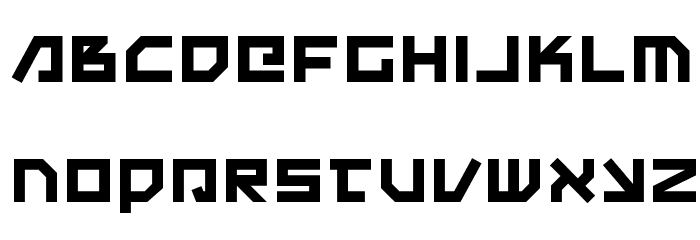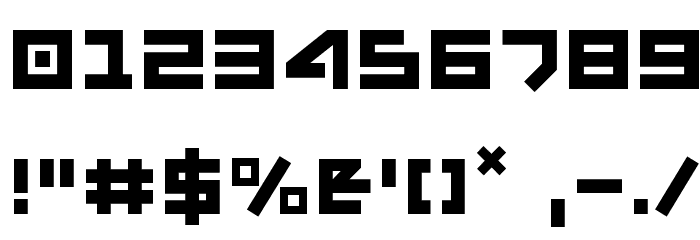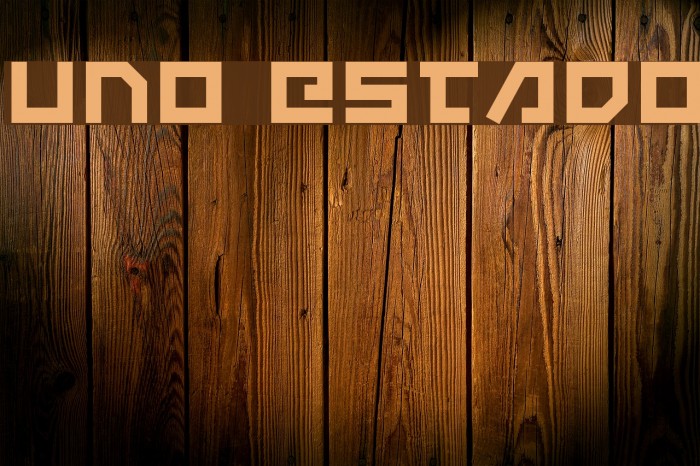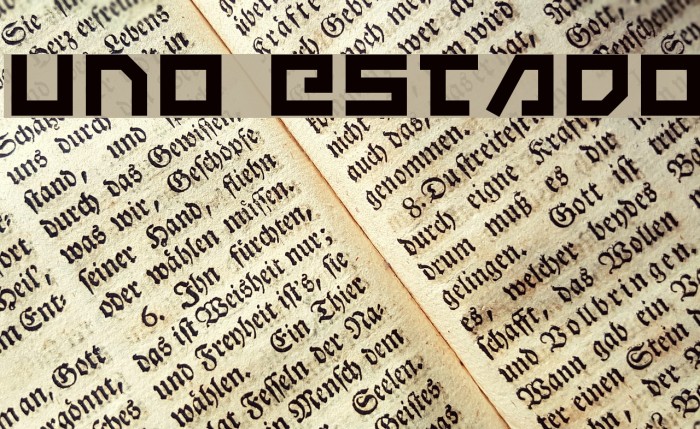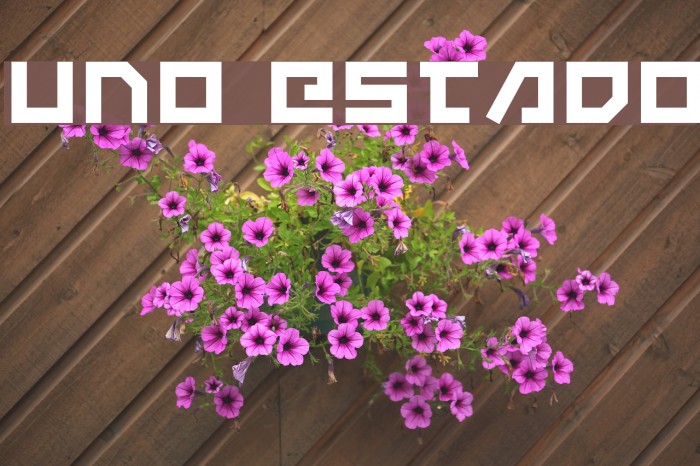
Uno Estado Font
This font features a bold, geometric design with sharp angles and a futuristic aesthetic. The characters are constructed with thick, uniform strokes, giving them a strong presence. The uppercase and lowercase letters share a consistent style, with angular edges and a blocky appearance. Numbers and special characters maintain the same bold and angular design, ensuring a cohesive look across all glyphs. This font is ideal for projects that require a modern and edgy feel, such as technology branding, video game titles, or sci-fi themed designs.
- Proposed Projects: Ideal for technology branding, video game titles, sci-fi themed designs, and modern posters.